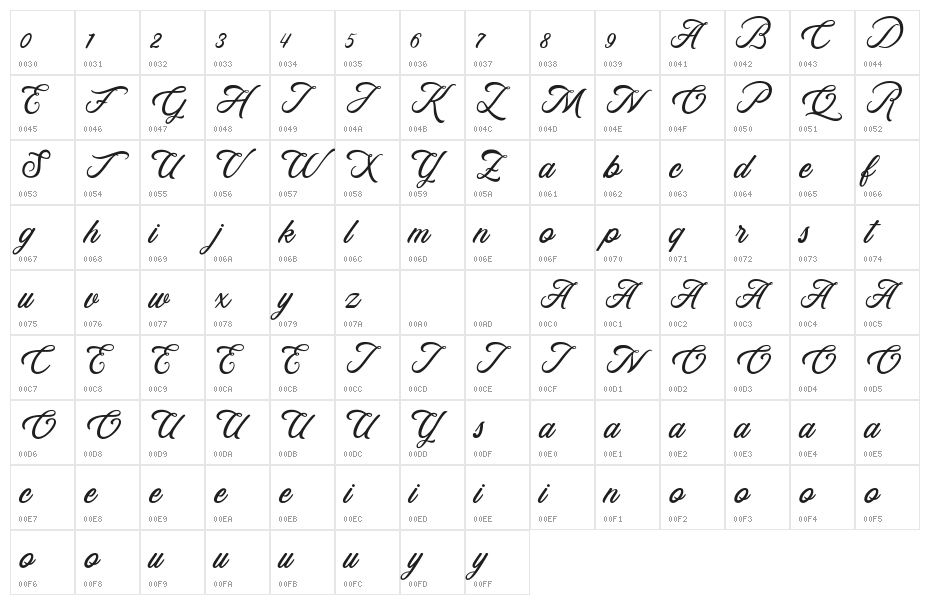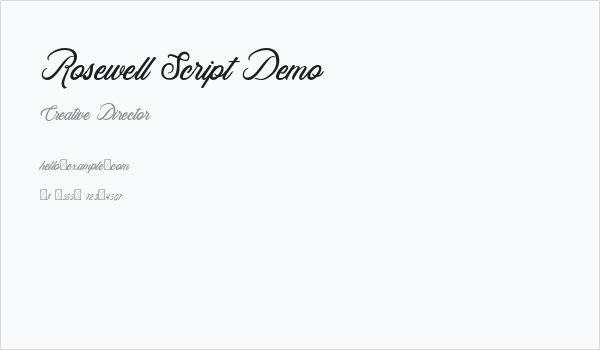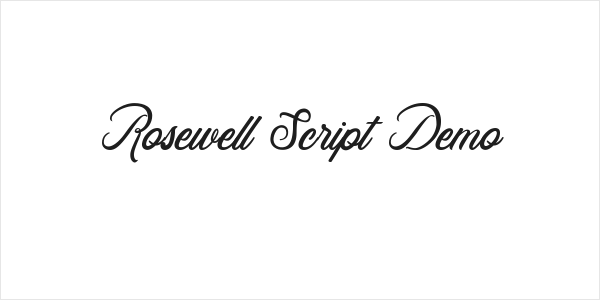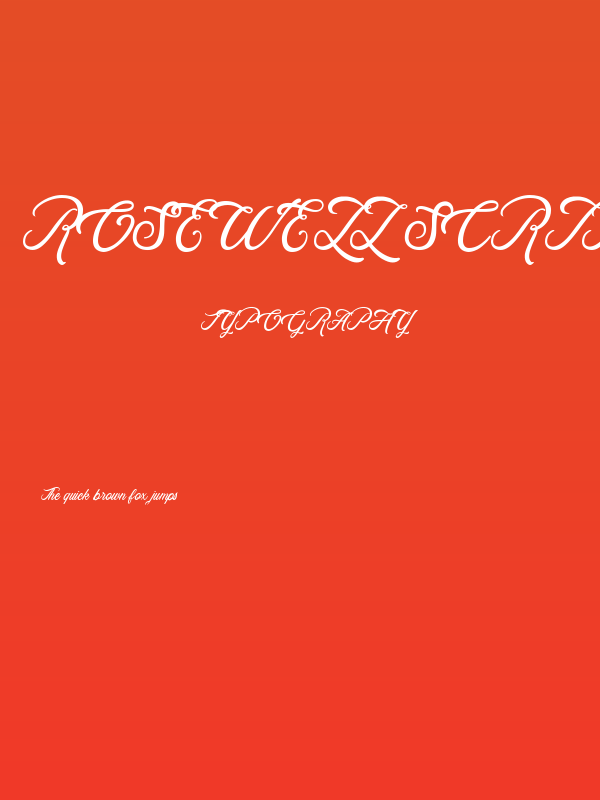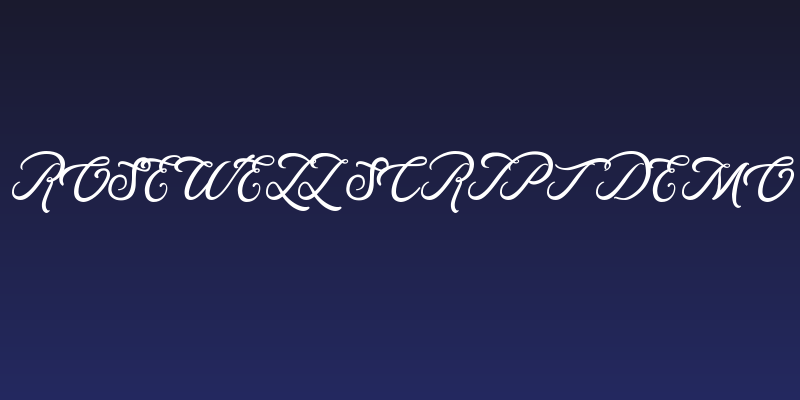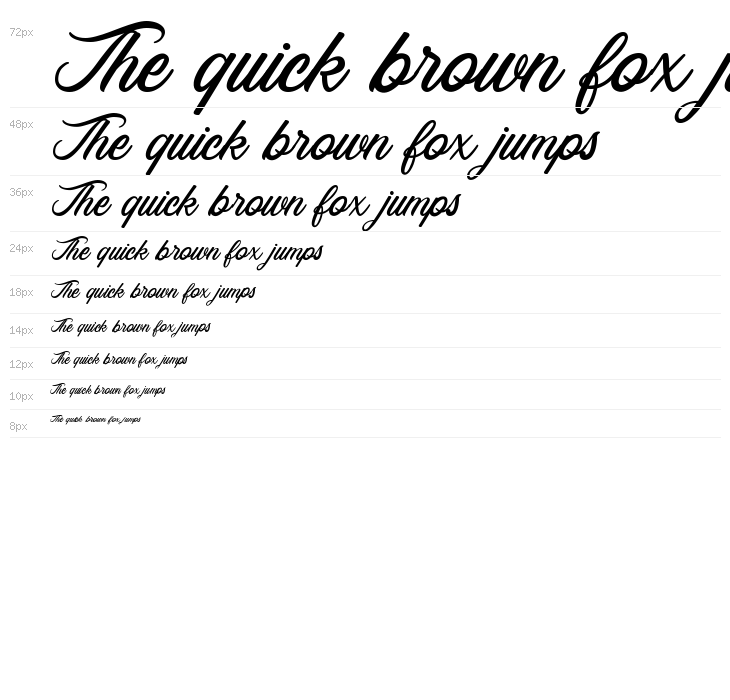
Rosewell Script Demo Font
Rosewell Script Demo Description
This elegant script font features a flowing, cursive style with intricate loops and flourishes that give it a sophisticated and graceful appearance. The uppercase letters are particularly ornate, with sweeping curves and decorative elements that enhance their visual appeal. The lowercase letters maintain a consistent flow, making them highly readable while still retaining an artistic flair. The numerals are styled to match the overall script aesthetic, ensuring a cohesive look across all characters. This font is perfect for projects that require a touch of elegance and sophistication.